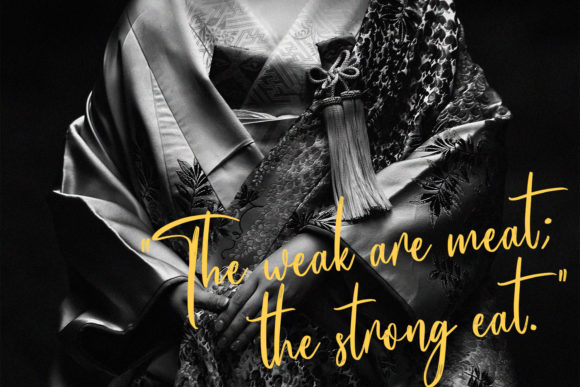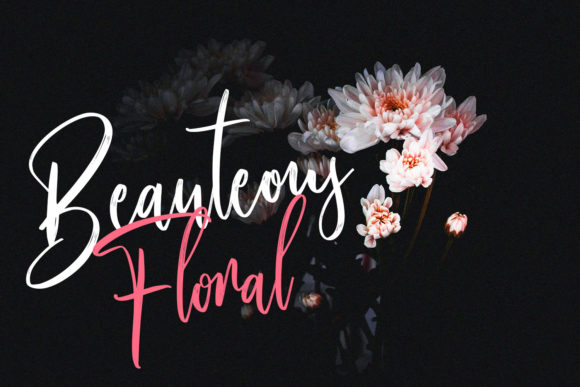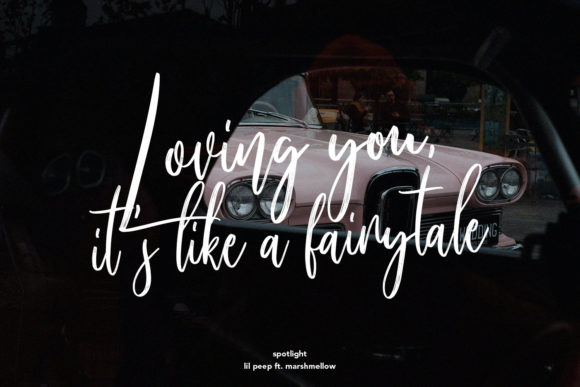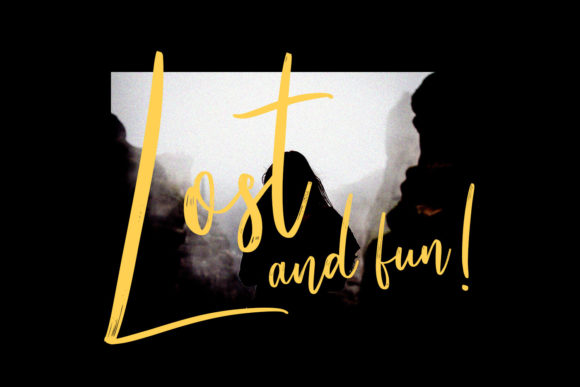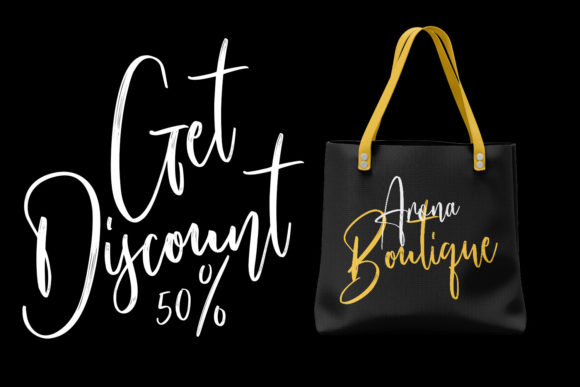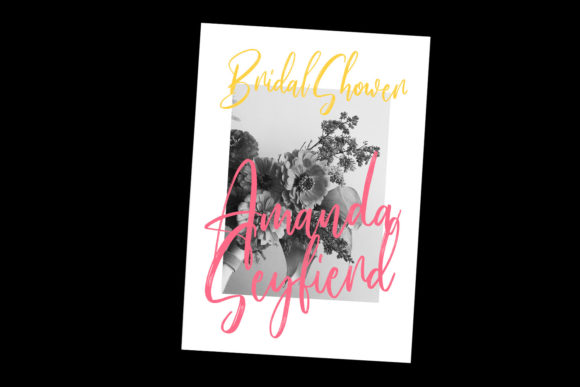
Introducing Alonnafeast Font: The Ultimate Elegance for Your Designs
Are you a designer or crafter looking for a font that exudes elegance and sophistication? Look no further than Alonnafeast Font. This stylish and incredibly elegant script font is perfect for adding a handwritten touch to your designs. In this article, we’ll explore the features and benefits of Alonnafeast Font, and how it can elevate your designs to the next level.
What is Alonnafeast Font?
Alonnafeast Font is a beautiful script font that is designed to add a touch of elegance and sophistication to your designs. Its flowing lines and cursive strokes make it perfect for creating stunning wedding invitations, thank you cards, quotes, greeting cards, logos, business cards, and more.
Key Features of Alonnafeast Font
- Elegant and Sophisticated: Alonnafeast Font is designed to add a touch of elegance and sophistication to your designs. Its flowing lines and cursive strokes make it perfect for creating stunning designs.
- Handwritten Touch: Alonnafeast Font has a handwritten touch that makes it perfect for designs that require a personal and intimate feel.
- Versatile: Alonnafeast Font can be used for a variety of designs, including wedding invitations, thank you cards, quotes, greeting cards, logos, business cards, and more.
- Easy to Read: Despite its elegant and cursive nature, Alonnafeast Font is easy to read and understand, making it perfect for designs that require a clear and concise message.
Benefits of Using Alonnafeast Font
Using Alonnafeast Font in your designs can have numerous benefits. Here are a few:
- Adds Elegance: Alonnafeast Font adds a touch of elegance and sophistication to your designs, making them stand out from the crowd.
- Creates a Personal Touch: Alonnafeast Font has a handwritten touch that creates a personal and intimate feel, making your designs more relatable and engaging.
- Versatile: Alonnafeast Font can be used for a variety of designs, making it a versatile addition to your font collection.
- Time-Saving: With Alonnafeast Font, you can create stunning designs in no time. Its easy-to-read nature and elegant strokes make it perfect for quick and efficient designing.
How to Use Alonnafeast Font
Using Alonnafeast Font is easy and straightforward. Here are a few tips to get you started:
- Choose the Right Size: Choose a size that suits your design. Alonnafeast Font looks stunning in large sizes, but it can also be used in smaller sizes for more subtle effects.
- Experiment with Colors: Alonnafeast Font looks stunning in a variety of colors. Experiment with different colors to find the one that suits your design best.
- Pair it with Other Fonts: Alonnafeast Font can be paired with other fonts to create a unique and interesting effect. Experiment with different font combinations to find the one that works best for your design.
Who Can Use Alonnafeast Font?
Alonnafeast Font is perfect for designers, crafters, and anyone who wants to add a touch of elegance and sophistication to their designs. Here are a few examples of who can use Alonnafeast Font:
- Wedding Designers: Alonnafeast Font is perfect for creating stunning wedding invitations, wedding cards, and other wedding-related designs.
- Graphic Designers: Alonnafeast Font can be used for a variety of graphic design projects, including logos, business cards, and brochures.
- Crafters: Alonnafeast Font is perfect for crafters who want to add a personal touch to their crafts, including handmade cards, gift tags, and more.
In conclusion, Alonnafeast Font is a stylish and incredibly elegant script font that is perfect for adding a handwritten touch to your designs. Its flowing lines and cursive strokes make it perfect for creating stunning wedding invitations, thank you cards, quotes, greeting cards, logos, business cards, and more. With its ease of use, versatility, and elegance, Alonnafeast Font is a must-have for designers and crafters who want to take their designs to the next level.